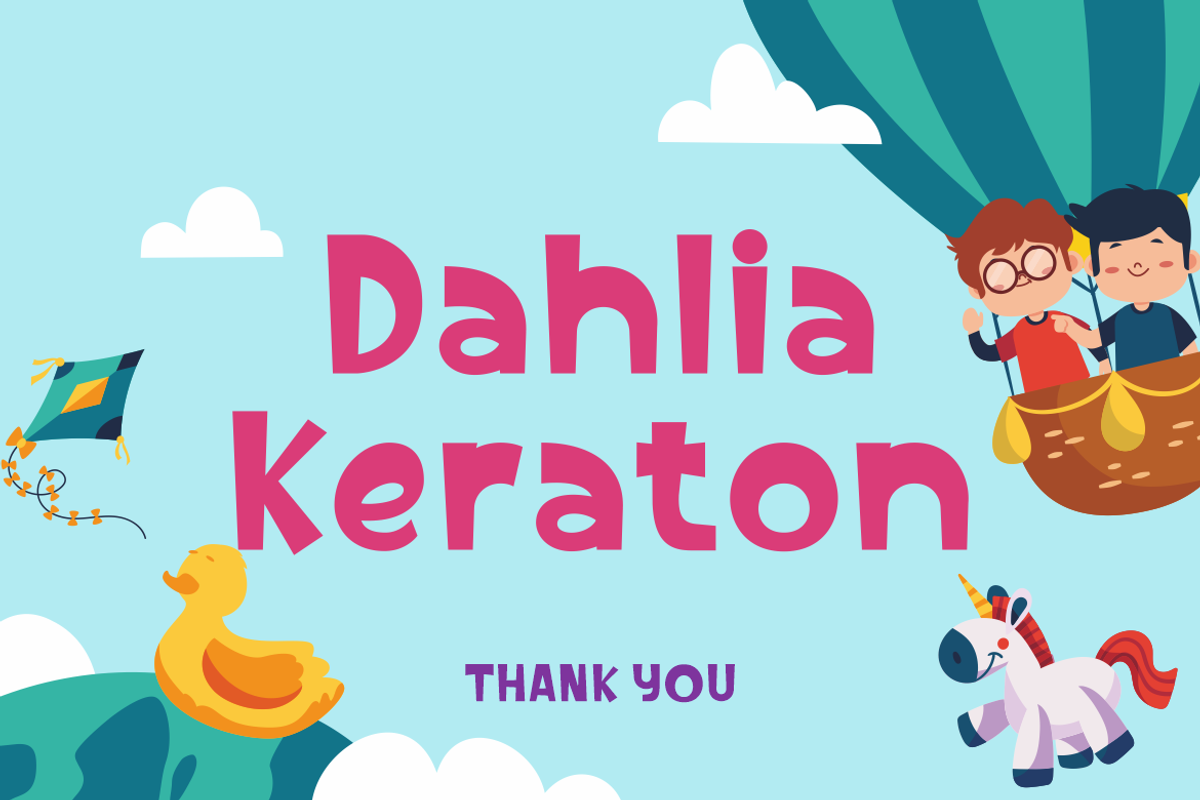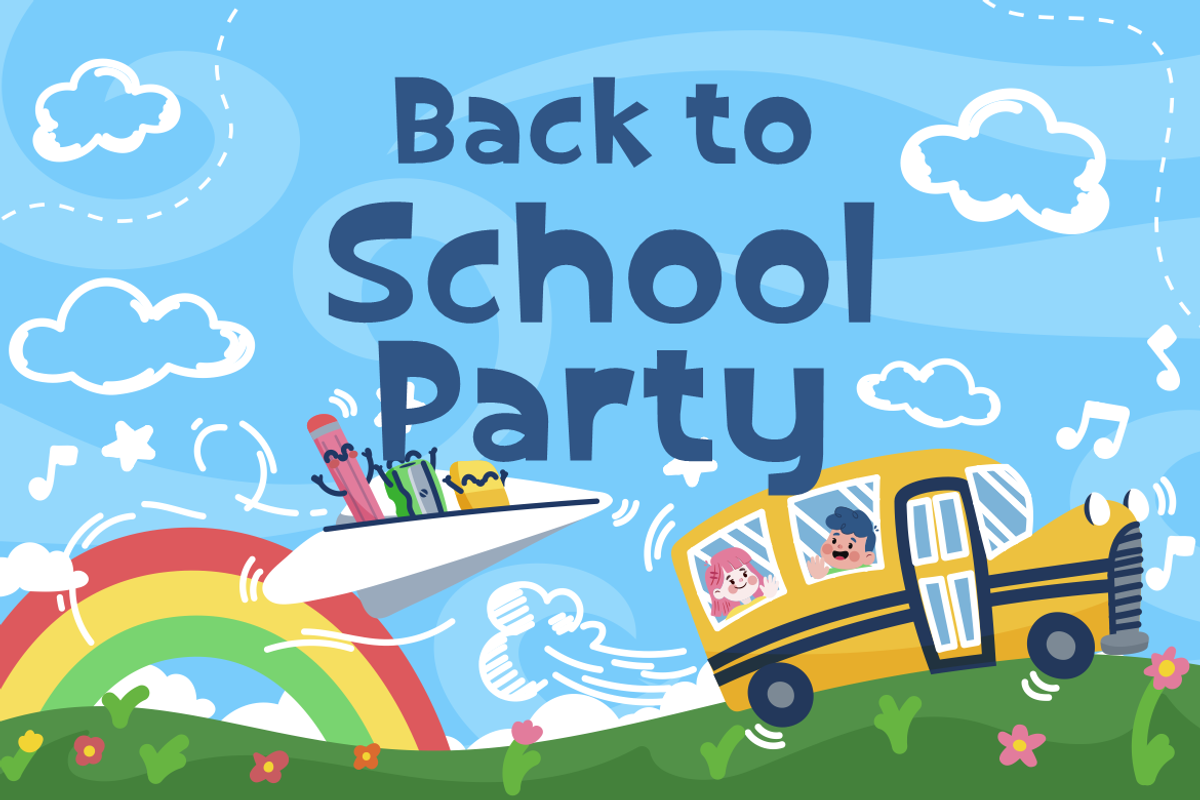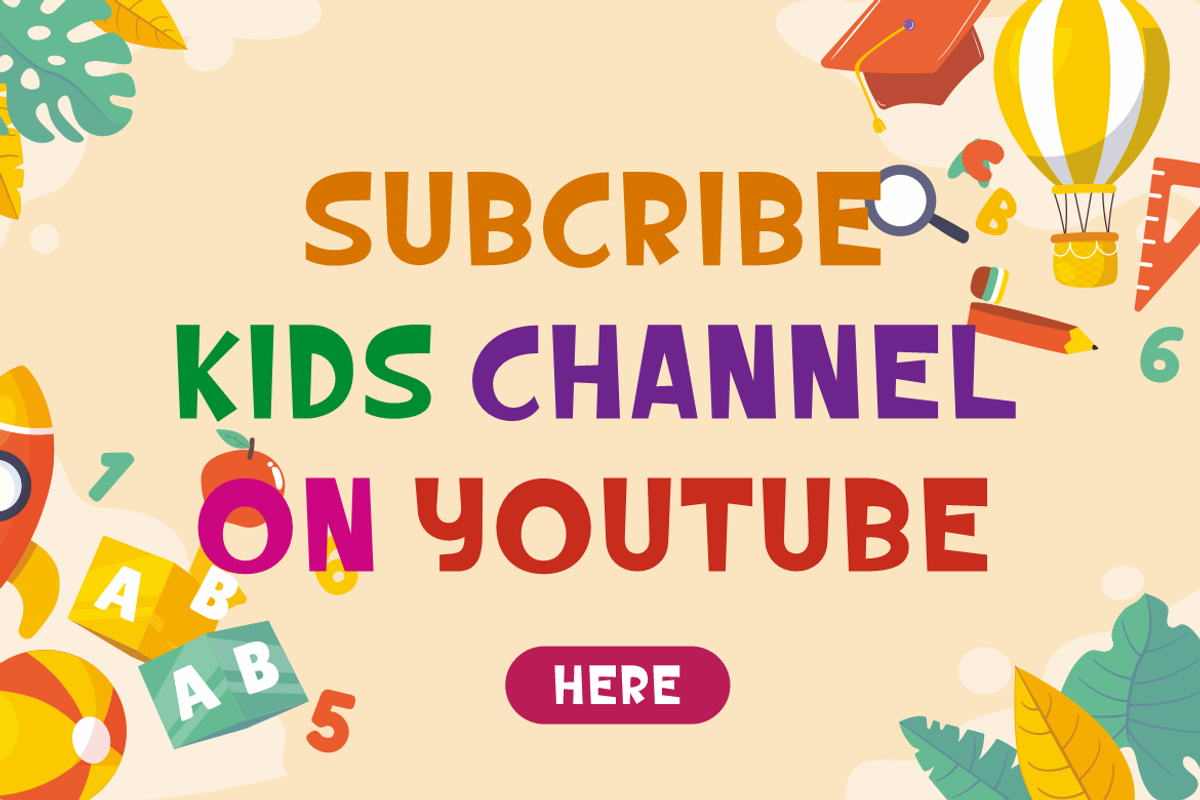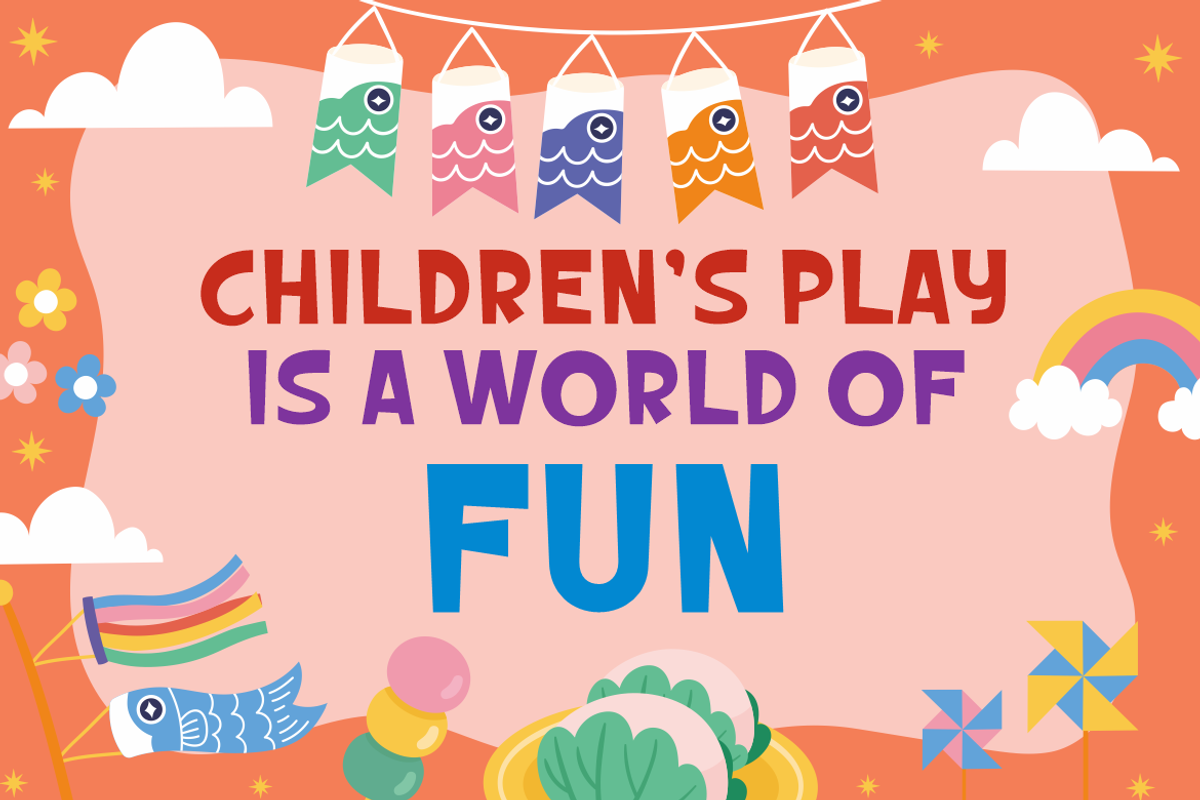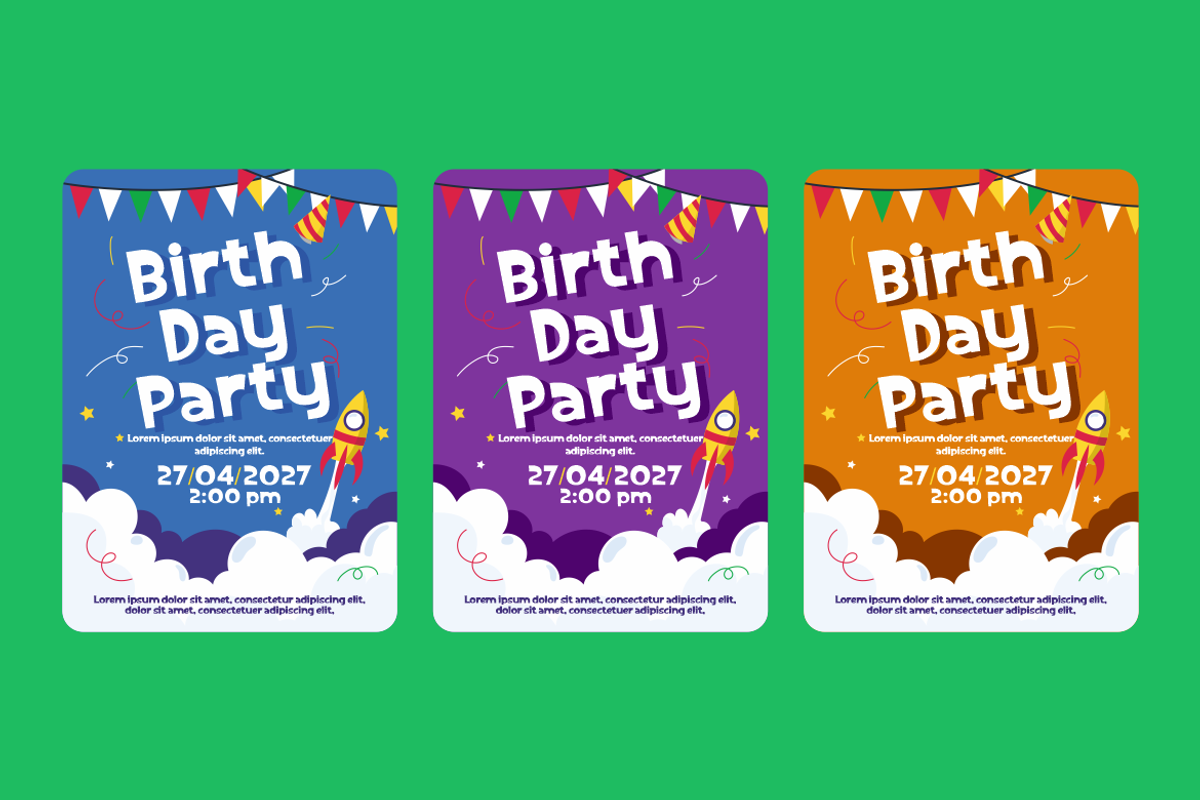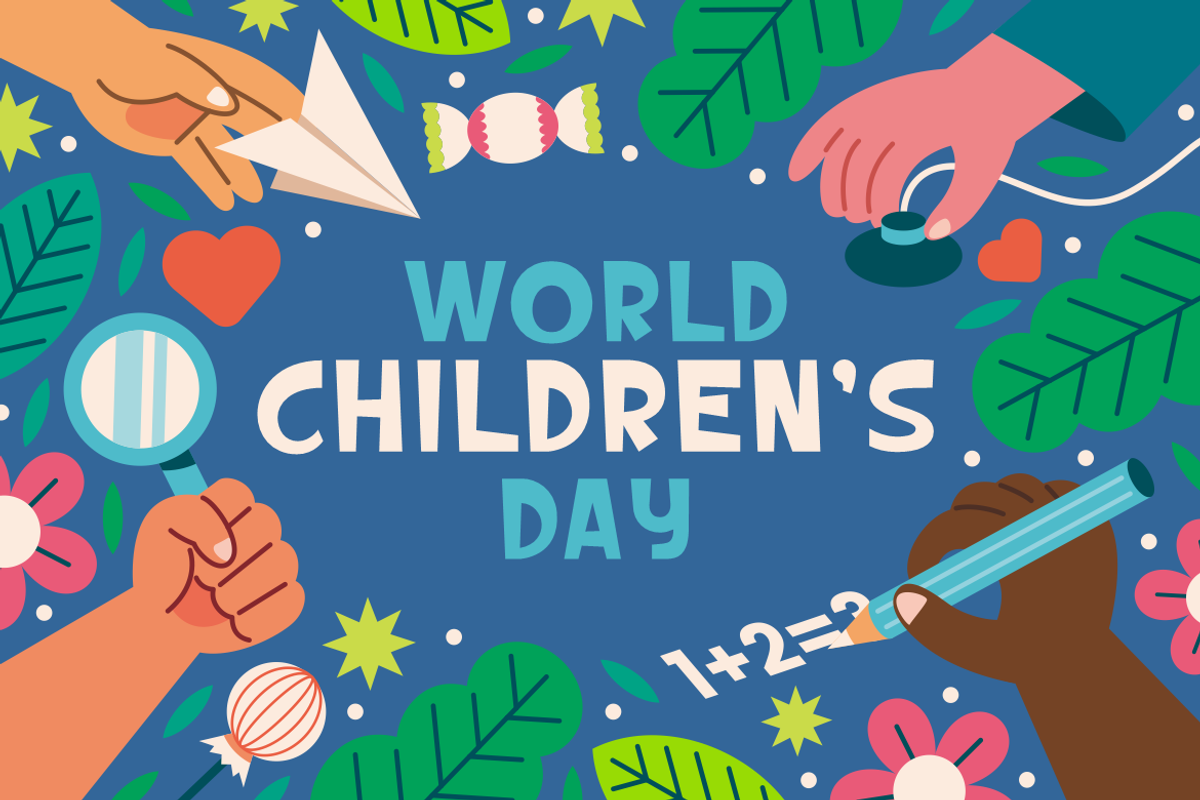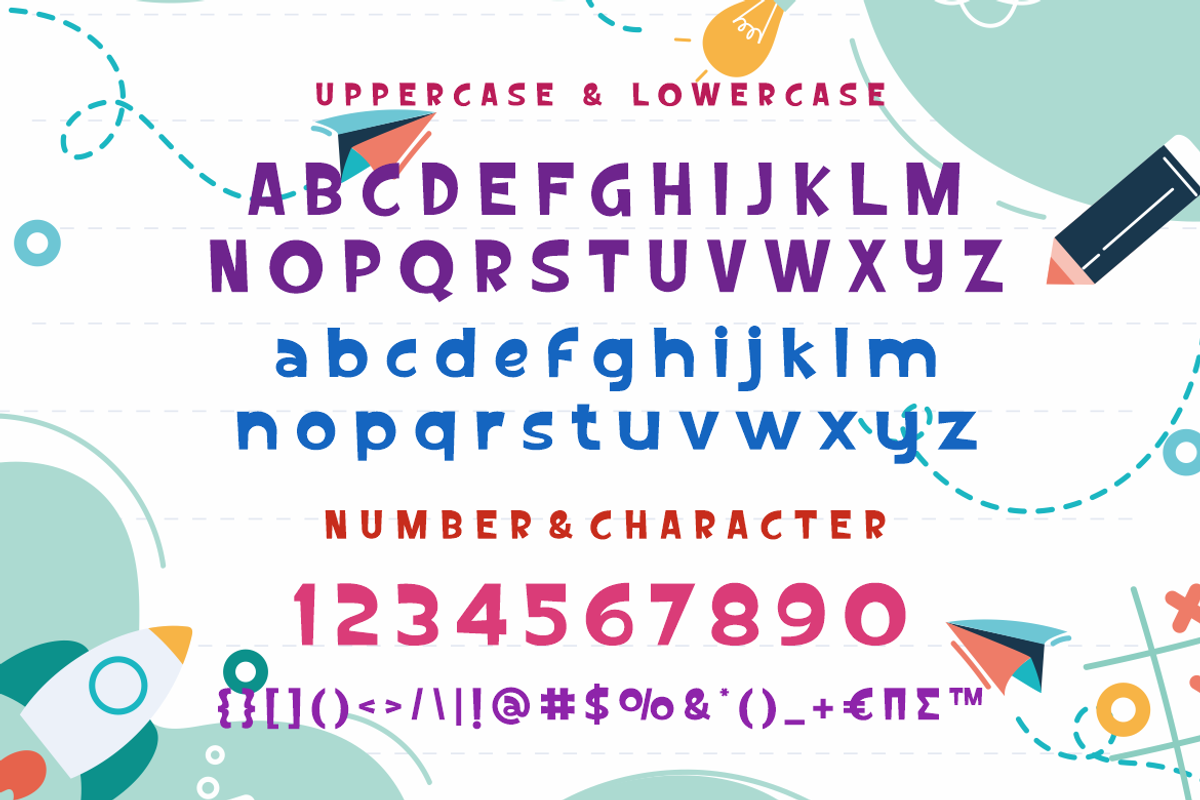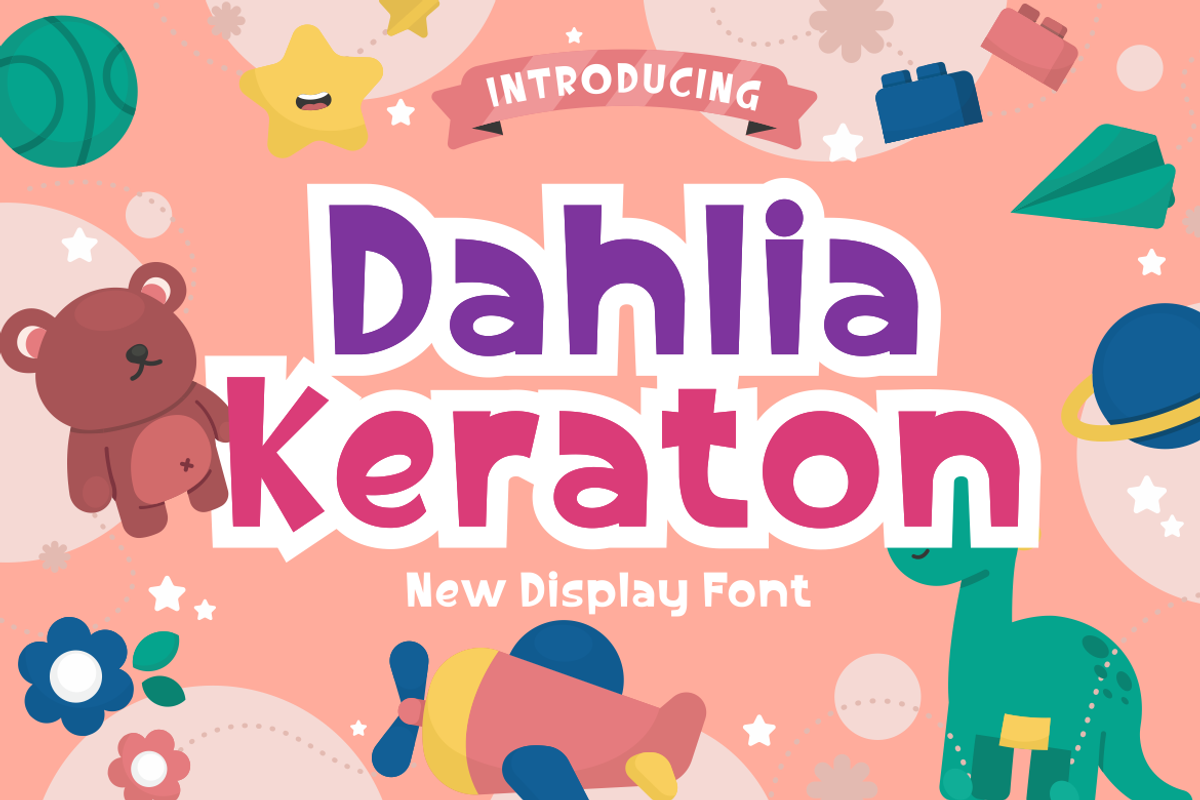
Dahlia Keraton
Dahlia Keraton font includes capital letters, numbers, and various punctuation marks. serif font with a stylish modern style. Created for posters, web design, branding, illustrations, badges and several other works